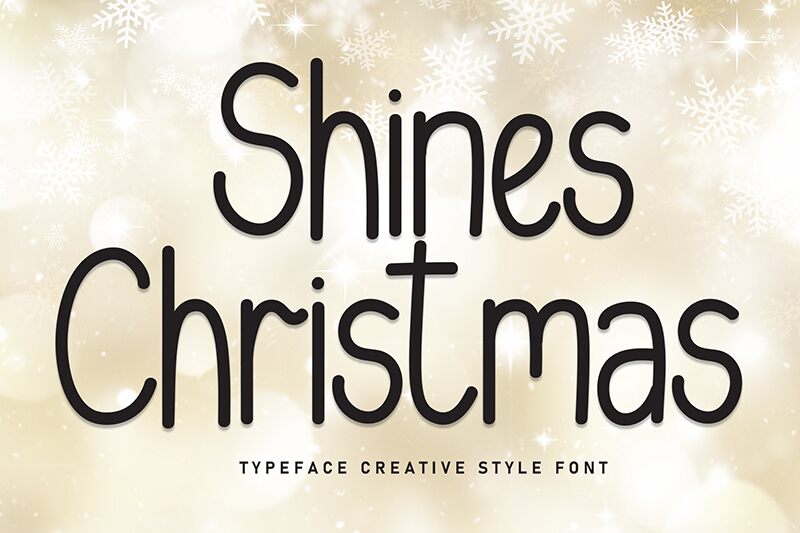
Shines Christmas
Shines Christmas font by Andi Moz is a condensed handwritten font with a whimsical style. With the touch of a pen and the spirit of winter, it offers an exceptional design with smooth lines and elegant curves. Casual yet professional, this unique artistic blend combines its fun presence with a modern feel, presenting an endless bundle of possibilities for all creatives.
Shines Christmas is free and brings its festive touch to greeting cards, wrapping paper designs, holiday logos for family activities, invitation designs for New Year’s Eve parties, home decorations items like coasters or napkins holders. Use it for social media posts that present holiday guides or new products. Advertising projects can also benefit from this charming tool including branding designs and packaging products which are both painted cheerfully.